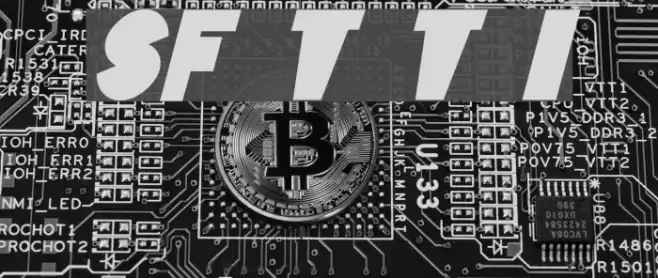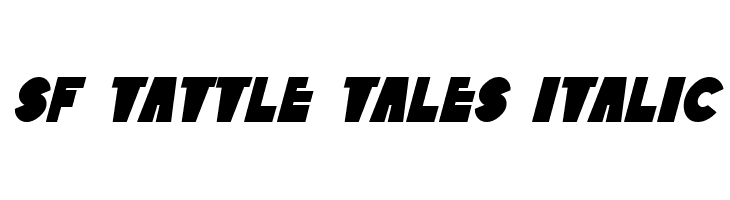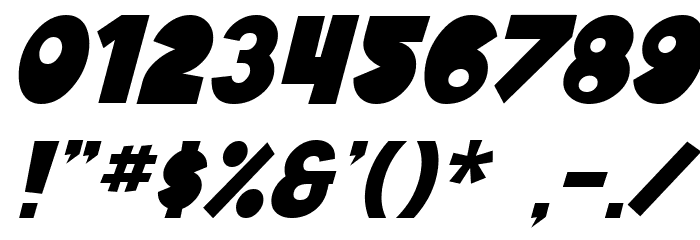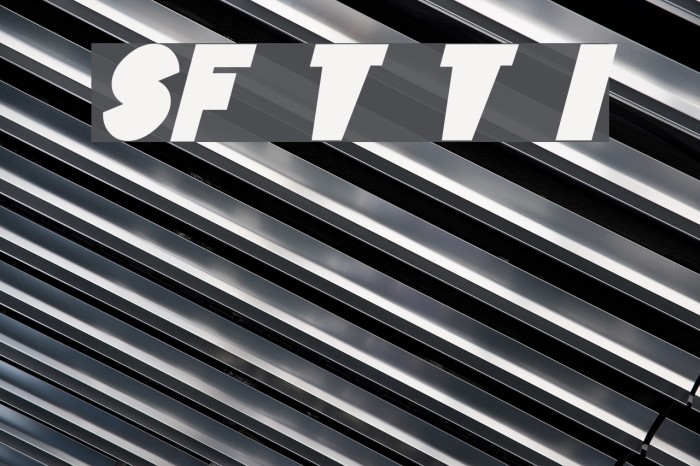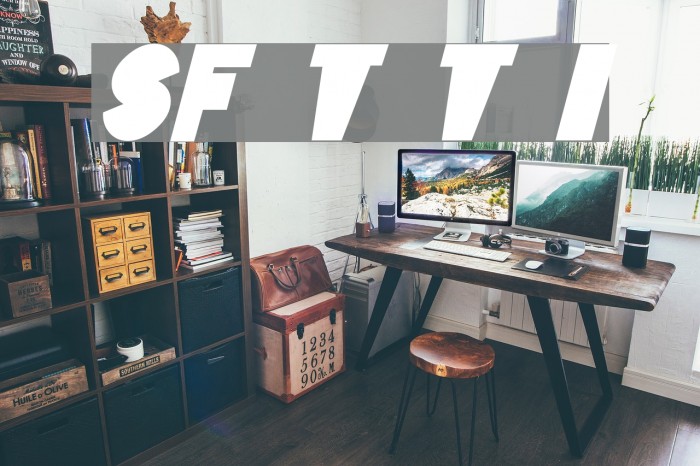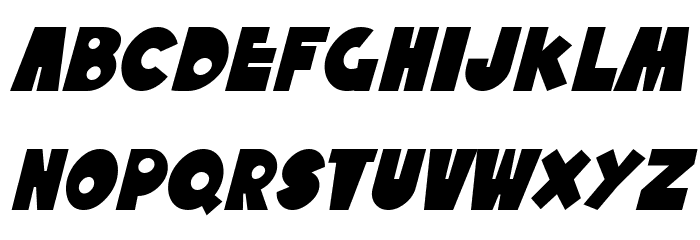
SF Tattle Tales Italic Font
SF Tattle Tales Italic Description
This font features a bold and dynamic style with a strong italic slant, giving it a sense of movement and energy. The characters are thick and robust, with a playful yet assertive presence. The uppercase and lowercase letters maintain a consistent weight, while the numbers and special characters are designed to match the boldness of the alphabet. The overall design is modern and eye-catching, making it suitable for projects that require a strong visual impact.
A bold, italic font with a dynamic and modern style from Comic fonts.
- Proposed Projects: Ideal for headlines, posters, branding materials, and any project that requires a bold statement.